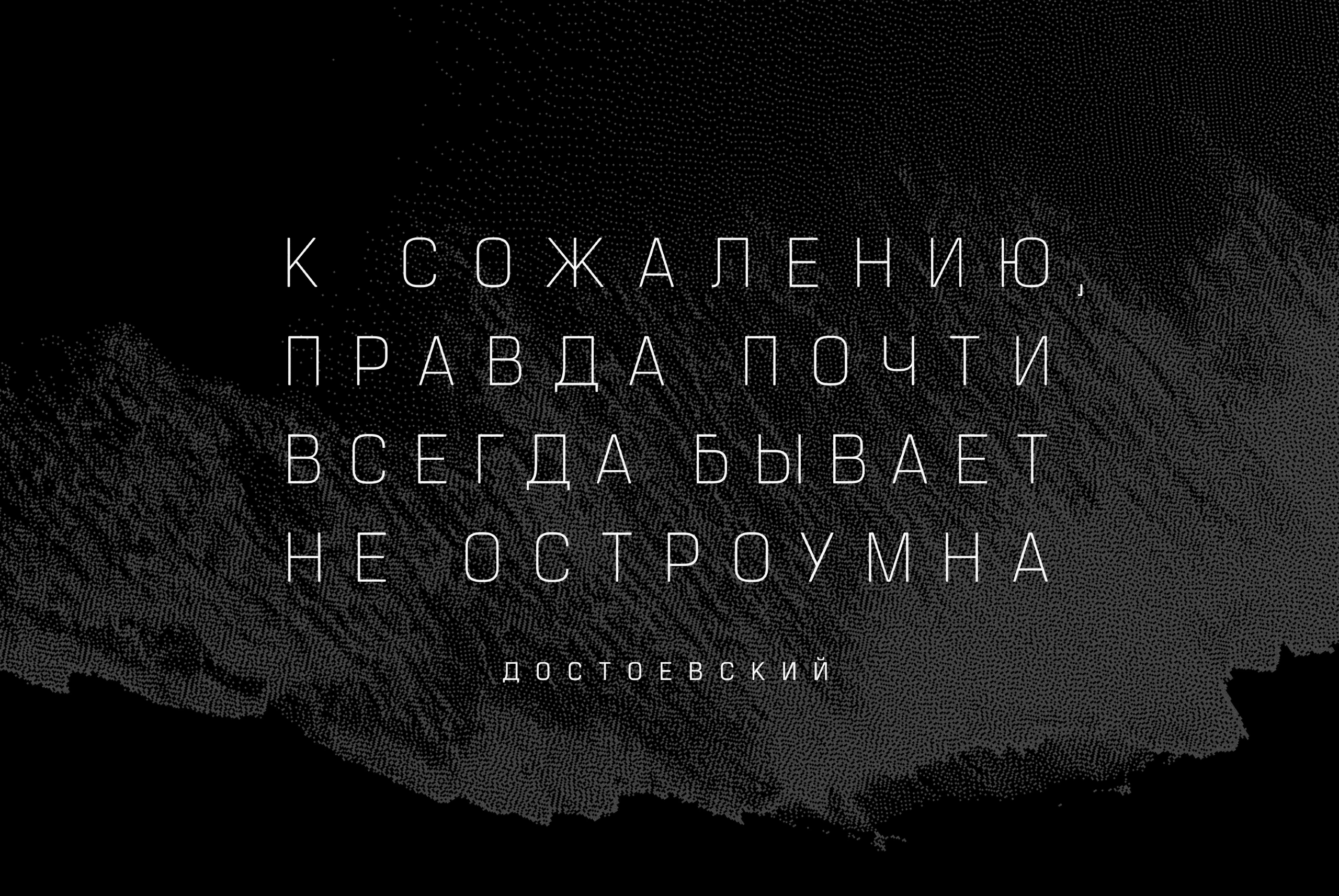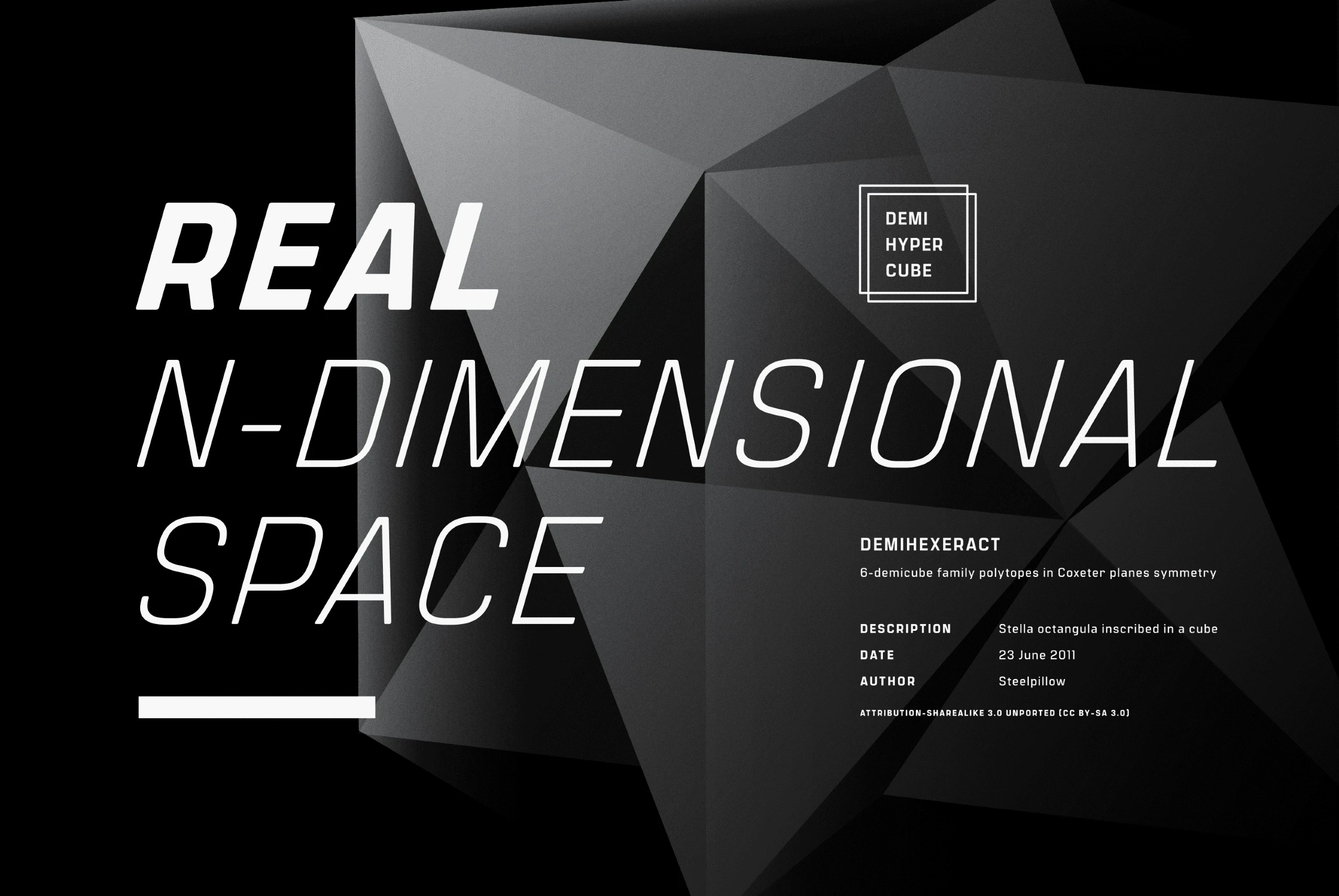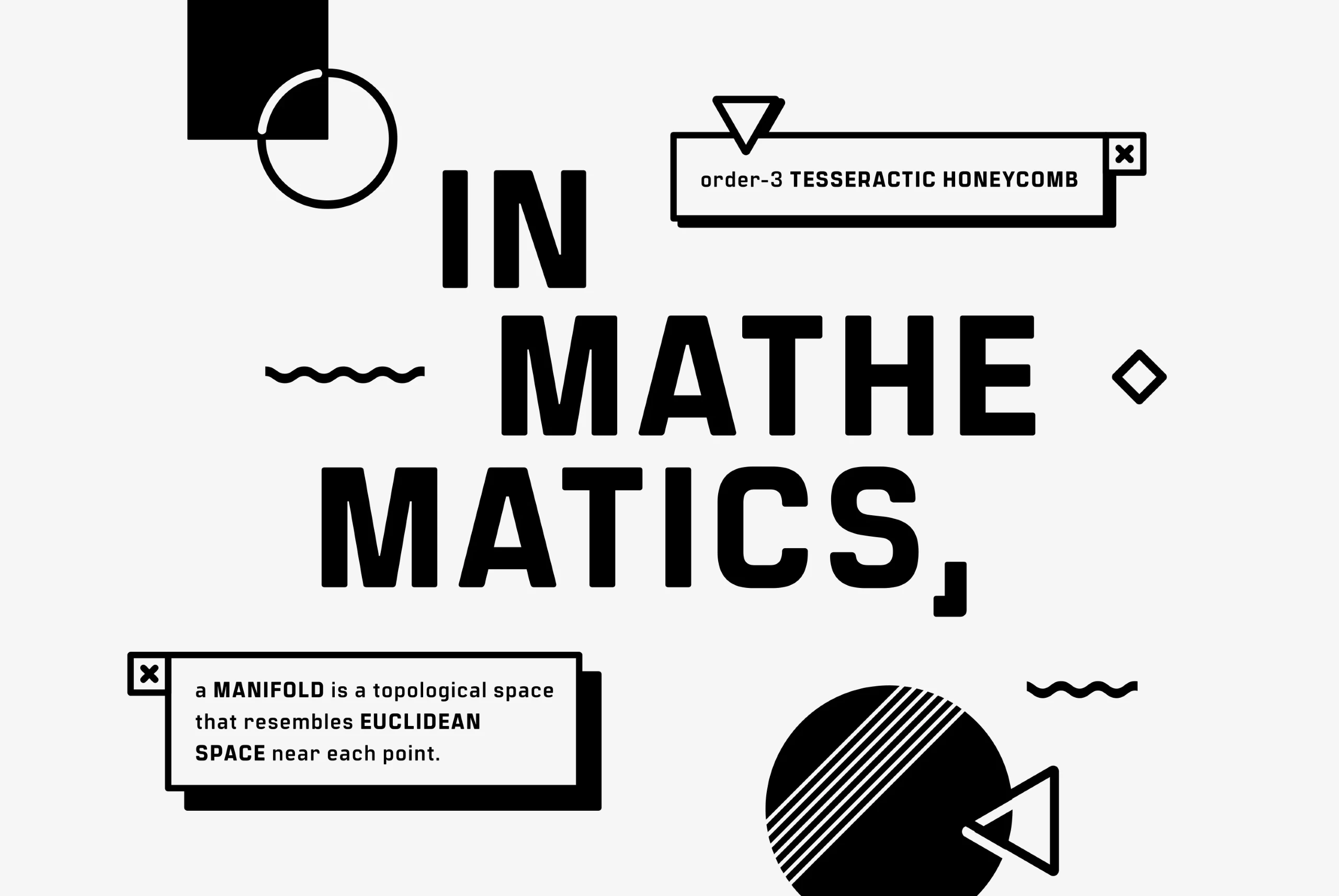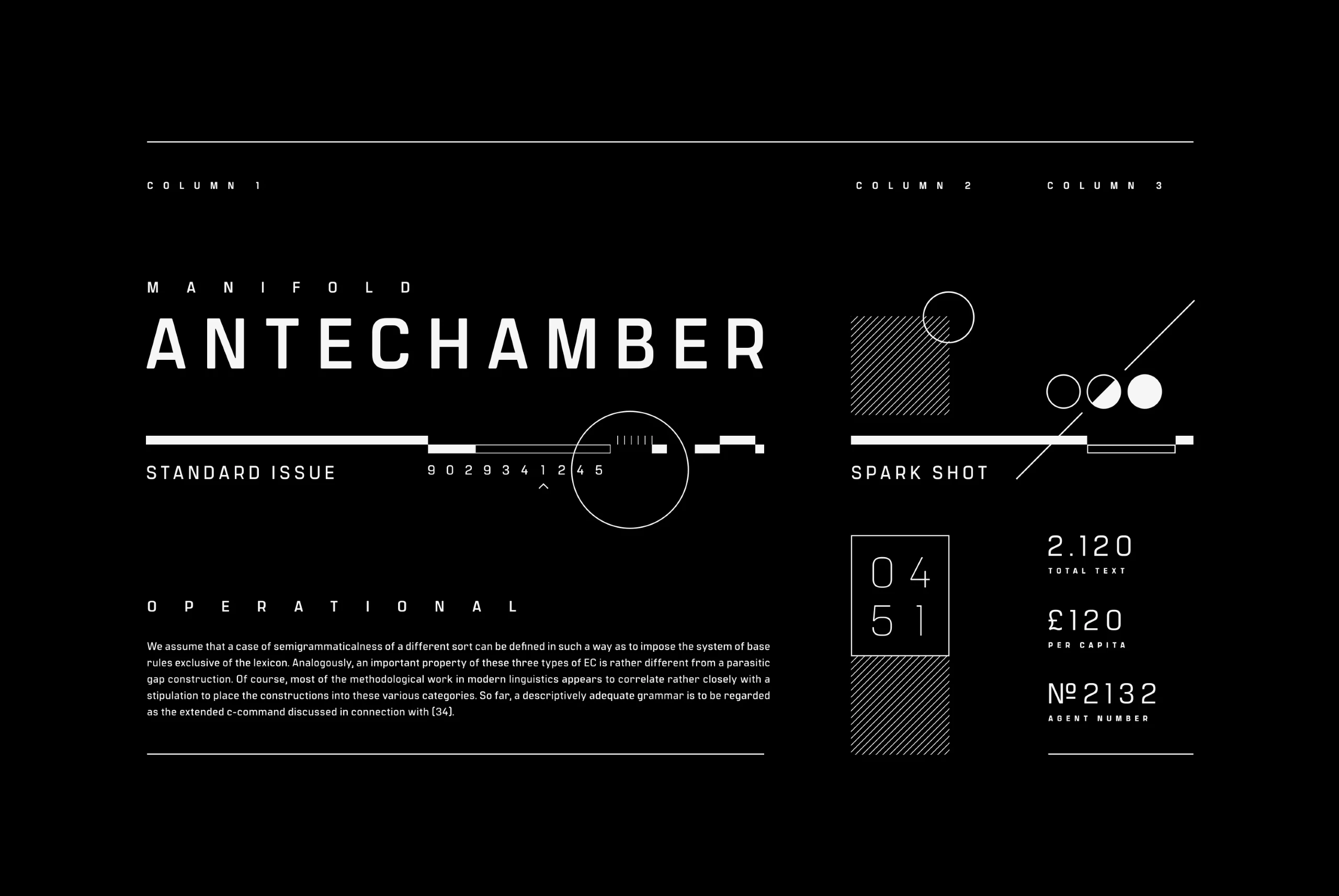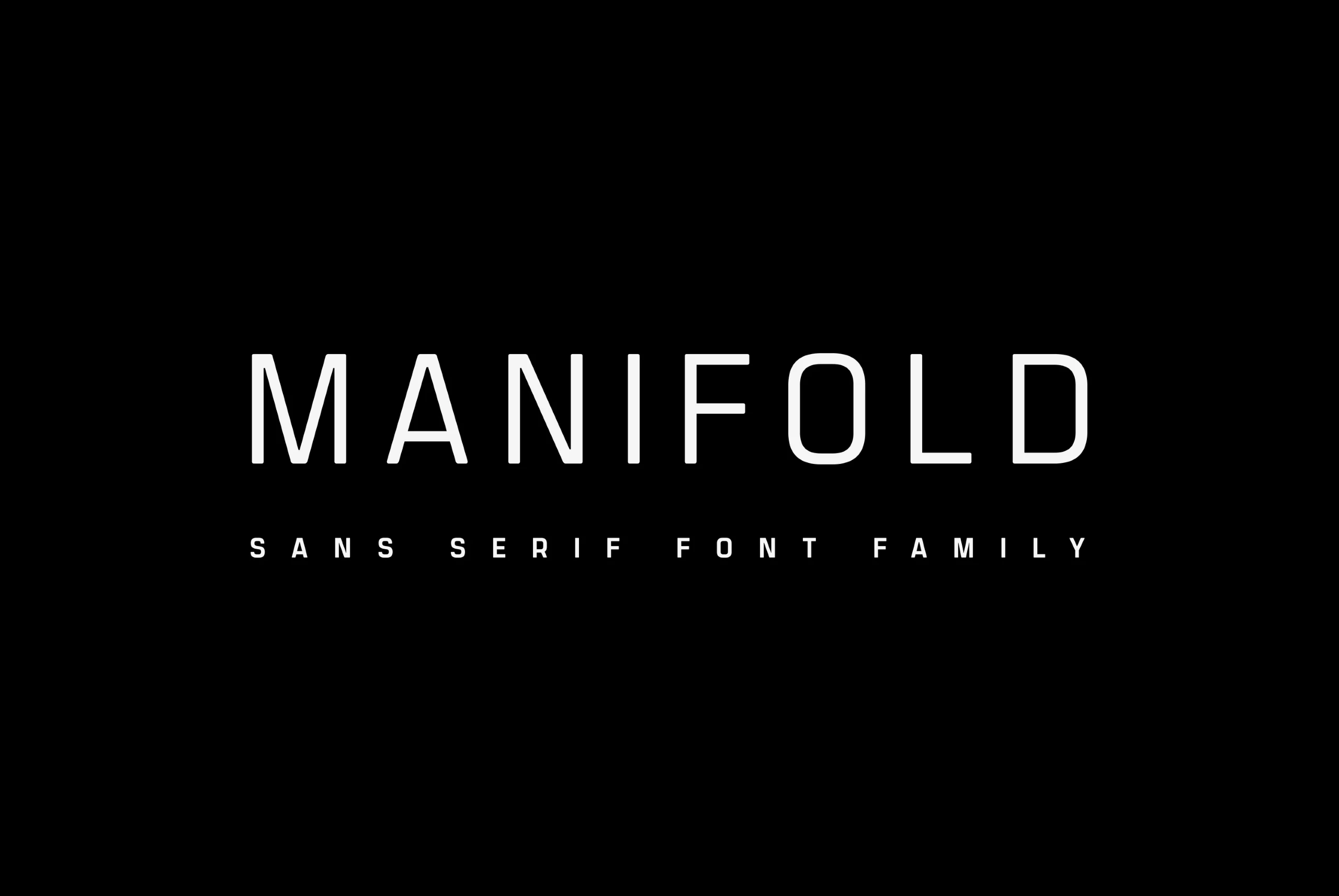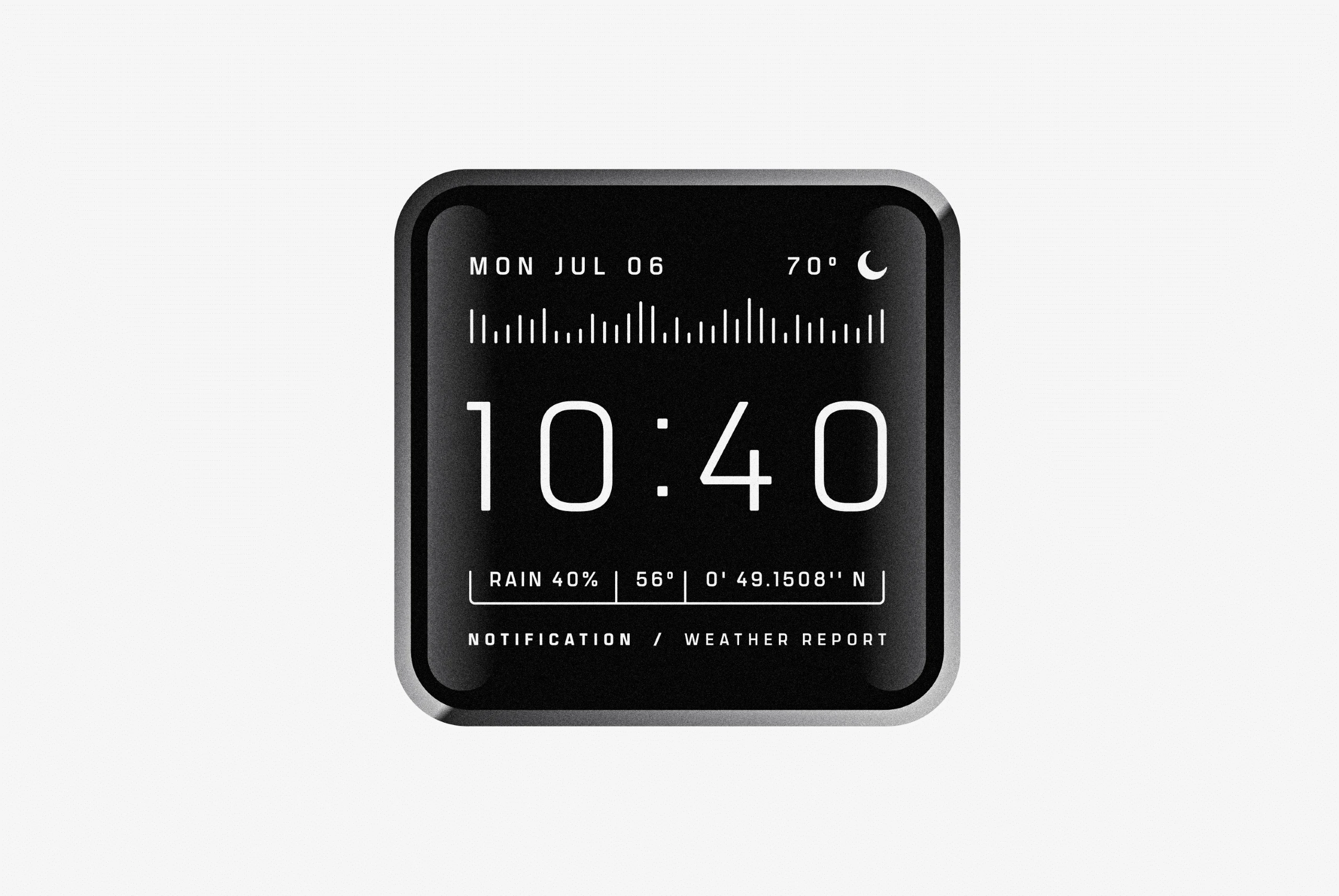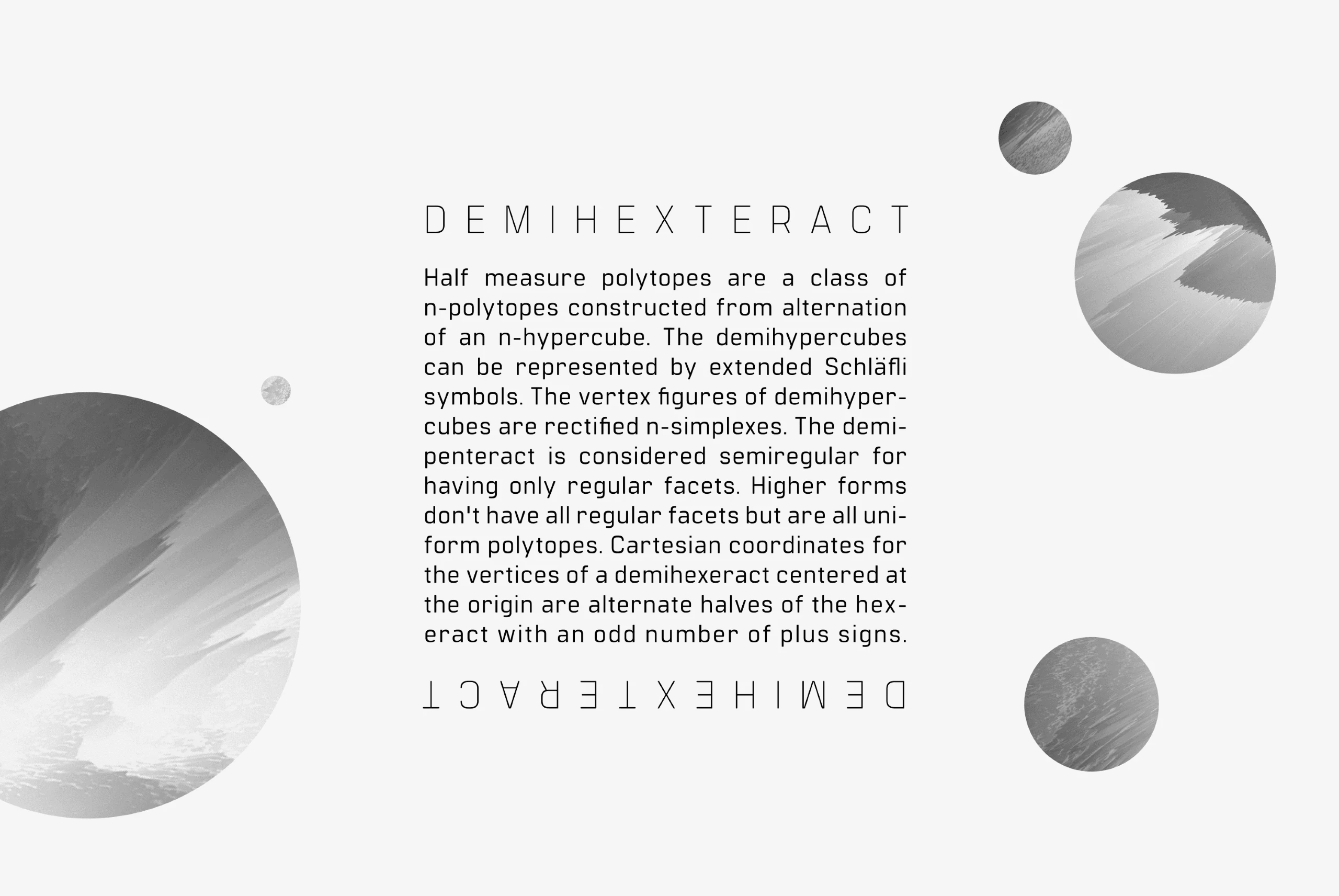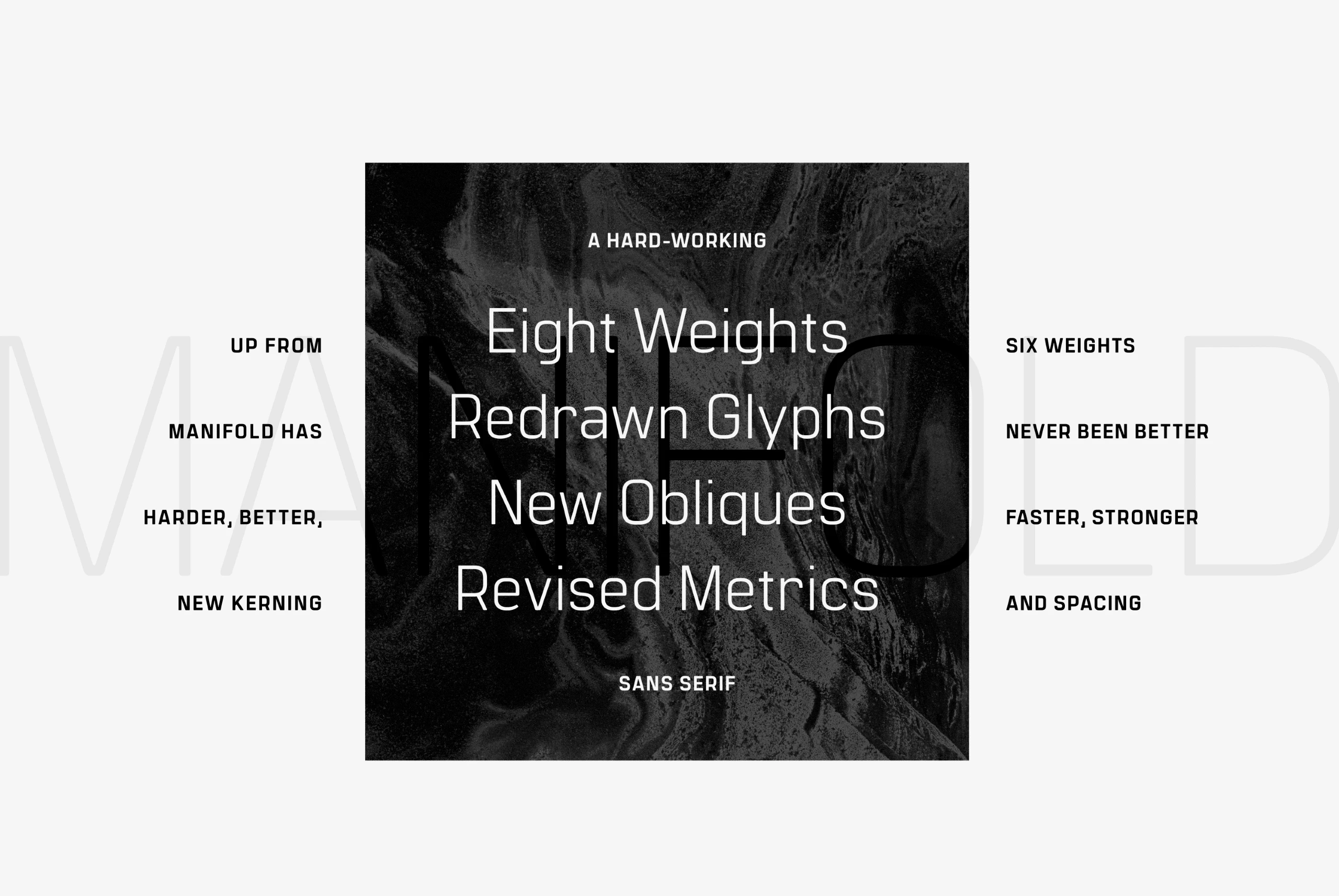
Manifold
Manifold CF is a utilitarian sans serif that merges terminal-inspired precision with a warm, unified structure and a tall x-height. Ideal for interfaces, short copy, and — tracked out — cinematic titles and headlines. The Extended style pushes this engineering further, creating wide, confident forms suited for tech, sports, editorial, and bold branding. With eight weights, matching italics, and support for Latin, Cyrillic, and Vietnamese, it covers more than thirty languages.
eight Weights in Latin & Vietnamese • Cyrillic Script
Language support includes Belarusian, Bulgarian, Catalan, Chinese Pinyin, Croatian, Czech, Danish, Dutch, English, Filipino, Finnish, French, Fula, German, Hungarian, Indonesian, Italian, Latvian, Macedonian, Malay, Maltese, Norwegian, Polish, Portuguese, Romanian, Russian, Serbian, Slovak, Slovenian, Spanish, Swedish, Turkish, Ukrainian, Uzbek, Vietnamese